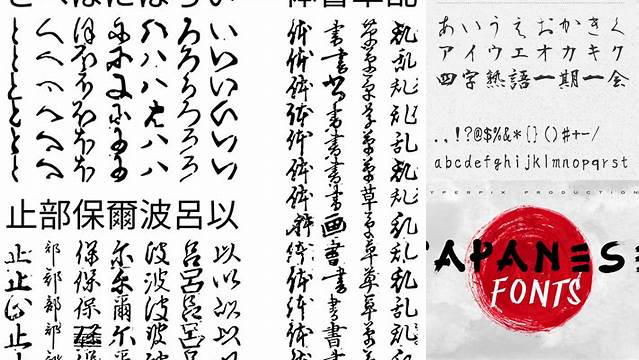
Free Japanese Cursive Fonts: Download & Use
Are you looking to add a touch of Japanese elegance and artistry to your designs? Japanese cursive fonts, also known as calligraphy fonts, offer a beautiful way to express yourself. These fonts, which mimic the fluid strokes of traditional Japanese calligraphy, can bring a unique aesthetic to various projects, from graphic design and branding to personal projects like invitations and greeting cards.
Understanding Japanese Cursive and Its Appeal
Before diving into the world of free Japanese cursive fonts, it's essential to understand the basics of Japanese writing systems. Japanese primarily uses three scripts: Hiragana, Katakana, and Kanji. Hiragana and Katakana are phonetic scripts, while Kanji consists of Chinese characters adopted into the Japanese language. Cursive fonts are most commonly associated with Hiragana and, to a lesser extent, Katakana. These scripts lend themselves beautifully to flowing, connected strokes, creating a visually appealing and artistic effect. The beauty of Japanese cursive lies in its ability to convey both meaning and emotion through its elegant forms. The brushstrokes, the curves, and the overall flow of the characters contribute to the overall aesthetic impact. This is why these fonts are highly sought after by designers and creatives looking to add a touch of sophistication and cultural richness to their work. The use of Japanese cursive fonts can instantly elevate a design, making it stand out and capturing the essence of Japanese artistry. From invitations and posters to websites and branding materials, these fonts can be incorporated in a variety of contexts. Their versatility makes them a valuable asset for anyone looking to add a unique touch to their projects.
Where to Find Free Japanese Cursive Fonts
Font Websites
Several font websites offer a wide range of free fonts, including Japanese cursive styles. Some popular options include:
- Google Fonts: Google Fonts is a fantastic resource for open-source fonts that are free to use, even for commercial purposes. While their selection of Japanese cursive fonts might not be as extensive as dedicated Japanese font sites, they do offer some excellent choices.
Japanese Font Foundries and Websites
For a more specialized selection of Japanese cursive fonts, consider exploring Japanese font foundries and websites. These resources often provide fonts created specifically for the Japanese language, offering authentic and high-quality options.
- M+ FONTS: M+ FONTS is a Japanese font foundry that offers a range of free fonts, including beautiful cursive styles. Their fonts are known for their clarity and readability.
- Kobe Font: Kobe Font specializes in Japanese fonts and provides a selection of free options, including cursive styles. Their fonts are designed with attention to detail and cultural accuracy.
Online Design Communities
Online design communities and forums can also be great places to discover free Japanese cursive fonts. Designers often share their creations or recommend resources they've found helpful.
- Behance: Behance is a platform where designers showcase their work, and some designers may offer free fonts as part of their projects. Search for Japanese fonts or calligraphy fonts to find potential options.
- Dribbble: Similar to Behance, Dribbble is a community for designers to share their work. You might discover free Japanese fonts in the resources or downloads sections of projects.
- Reddit (r/fonts, r/typography): Reddit communities focused on fonts and typography can be valuable sources for finding free fonts and getting recommendations from other designers.
Key Considerations When Choosing a Font
When selecting a free Japanese cursive font for your project, several factors should guide your decision. It's not just about aesthetics; it's also about ensuring the font's readability, cultural appropriateness, and technical suitability.
Readability
Readability is paramount, especially when using cursive fonts. While these fonts are beautiful, their flowing strokes can sometimes make them challenging to read, particularly for those unfamiliar with Japanese cursive. Consider the following:
- Stroke Thickness: Fonts with consistent stroke thickness tend to be more readable than those with drastic variations. Look for fonts where the strokes are balanced and well-defined.
Conclusion: Embrace the Elegance of Free Japanese Cursive Fonts
Free Japanese cursive fonts offer a unique way to add elegance and artistry to your designs. Whether you're working on a branding project, creating invitations, or designing a website, these fonts can help you capture the beauty and sophistication of Japanese calligraphy. By understanding the nuances of Japanese cursive, exploring the available resources, and considering the key factors discussed in this guide, you can confidently choose and use these fonts to elevate your creative work. So go ahead, explore the world of Japanese cursive fonts, and let your creativity flow!